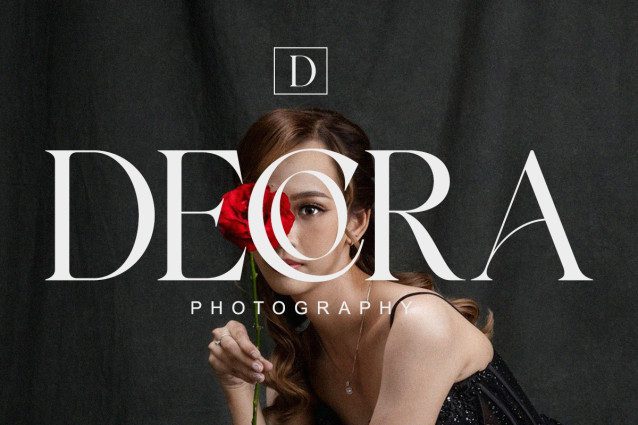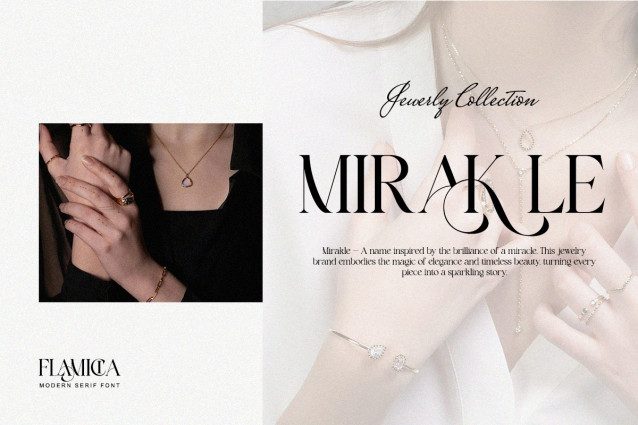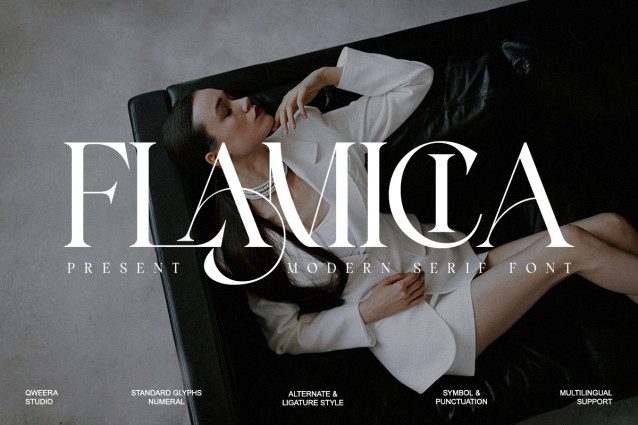
Flamicia Font
Flamicia Font, a luxury serif typeface inspired by editorial design and modern fashion aesthetics. It features high-contrast forms and stylish ligatures that add sophistication to every layout. Perfect for magazine covers, beauty logos, packaging, and high-end editorial projects, Flamicia brings grace and power into every design.